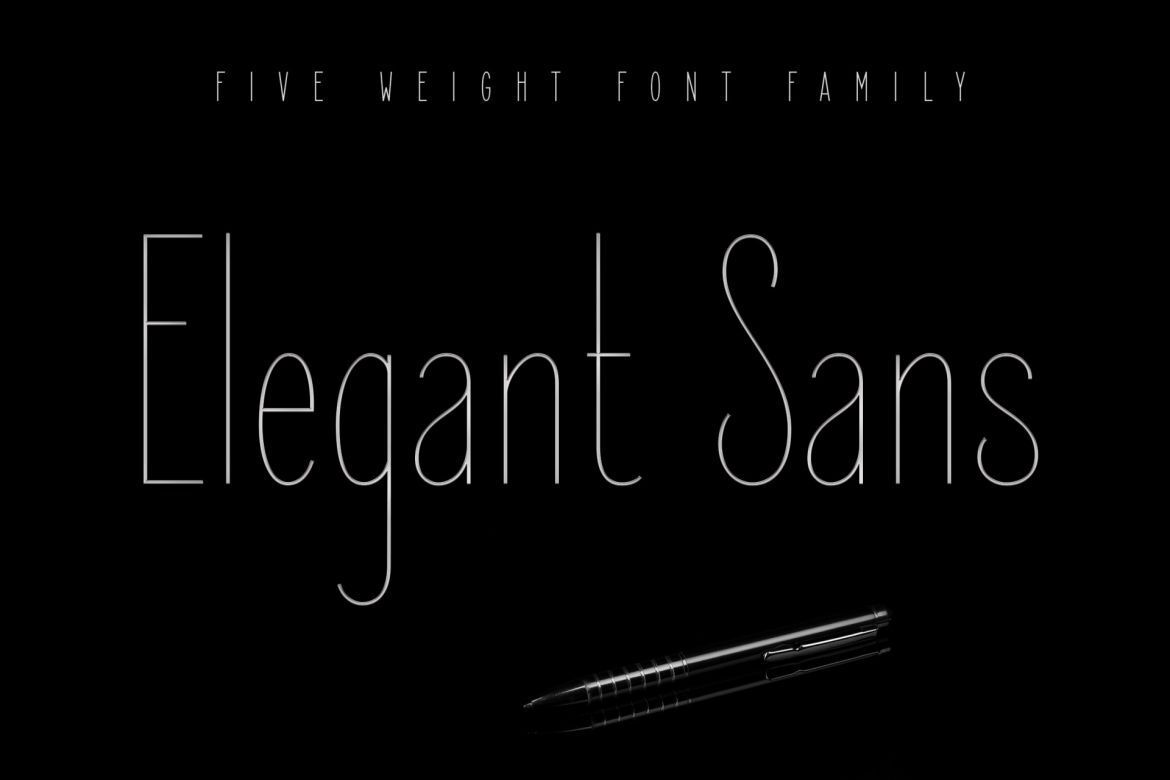
Free and Premium Quality Fonts - Best Premium FontsThis font was used on the londonese tube. Sans serif sans serif or gothic fonts are fonts that lack serifs at the end of strokes. Font squirrel relies on advertising in order to keep bringing you great new free fonts and to keep making improvements to the web font generator.
A more famous font during this period was gill sans created by eric gill for monotype corporation.
Sans serif font html. What sans serif says is use whatever the client has set as its default sans serif font which out of the box may be helvetica and arial but may not and it may be modified by the user. The font family of a text is set with the font family property. Sans serif fonts have a tendency to have less line width variation than serif fonts. Start with the font you want and end with a generic family to let the browser pick a similar font in the generic family if no other fonts are available.
Download 1470 free sans serif fonts. While serif is still used primarily for print sans serif is the most widely used font on the web due to its ability to render on screens with lower resolutions. It was the first sans serif font that had an italic version as well. Microsoft sans serif font is a very legible user interface ui font.
The font family property should hold several font names as a fallback system. This is a paragraph. In lettering and typography sans serif fonts sans serif gothic or simply sans letterform is one that does not have to extend features called serifs toward the end of strokes. This is a paragraph arial black gadget sans serif.
This is a heading. On my ubuntu machine thatll end up being rendered in the ubuntu font. If the browser does not support the first font it tries the next font and so on. This is a heading.
The one who brought a new look to the sans serif fonts was edward johnston who created johnston sans. Microsoft sans serif font family.